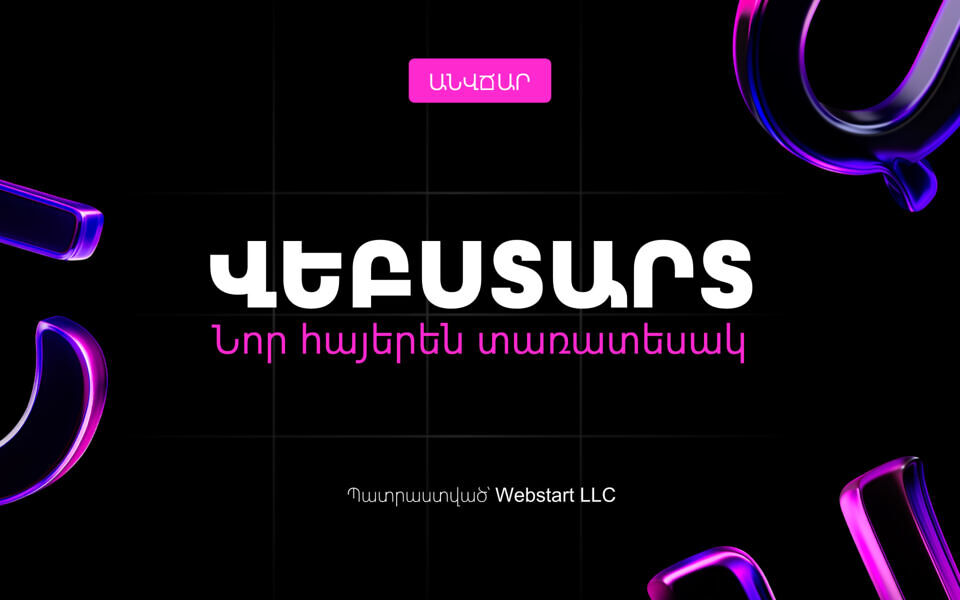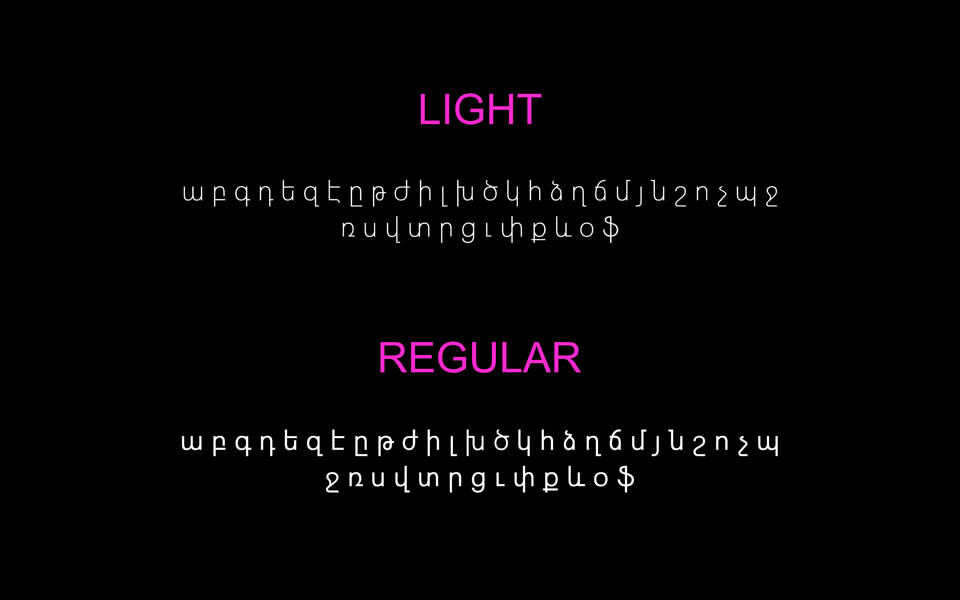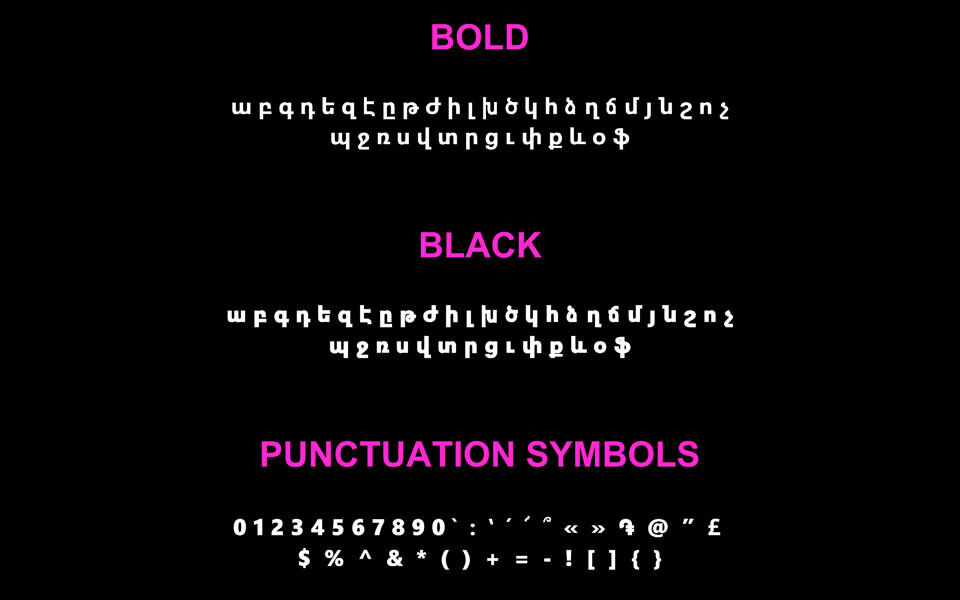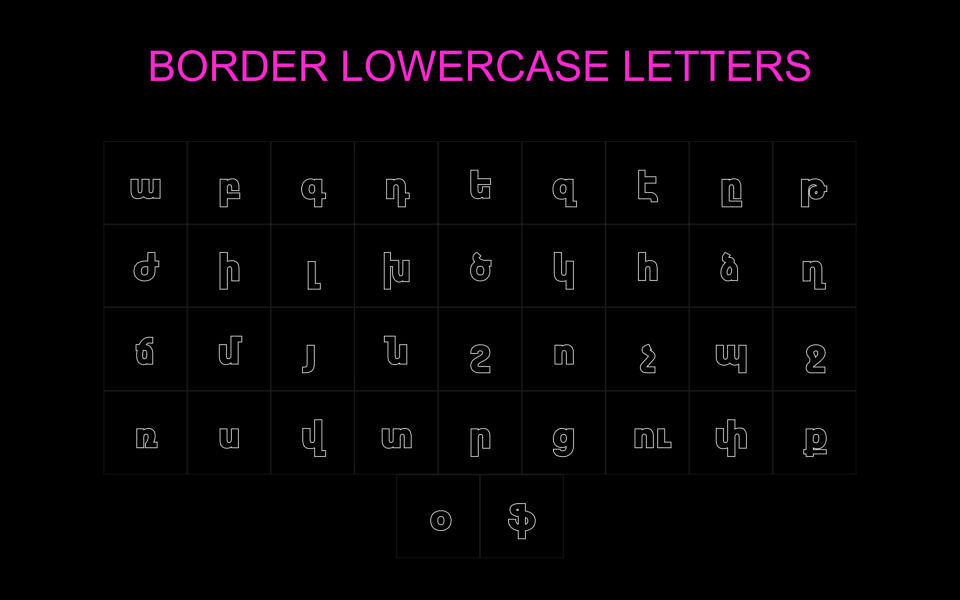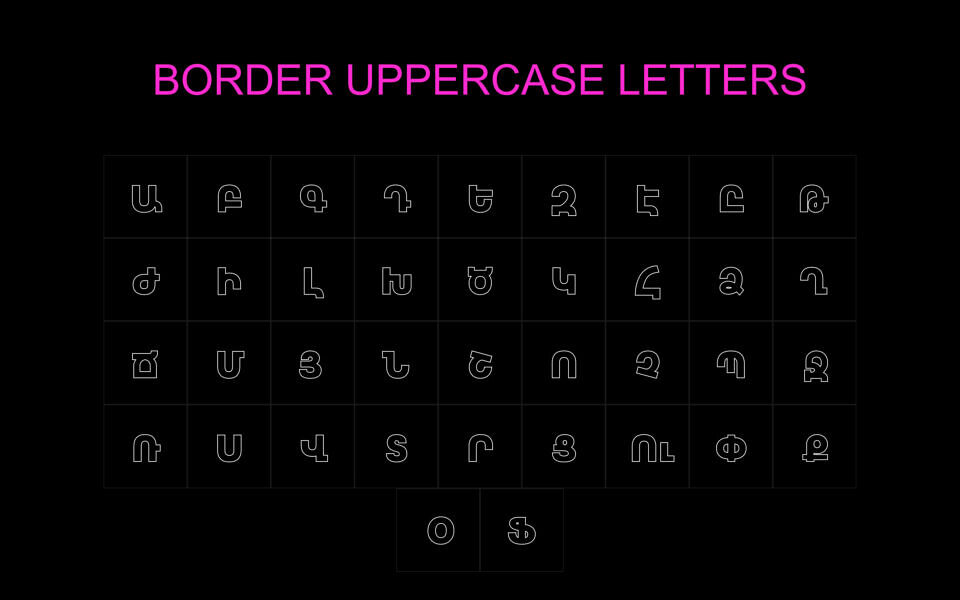
In a world where visual identity and digital presence matter more than ever, Webstart proudly introduces its very own Armenian typeface — a unique, fully custom-designed font that blends cultural heritage with modern digital aesthetics.
This font isn’t just a design product — it’s a contribution to preserving and elevating the Armenian language in the digital age. It was crafted with attention to typographic elegance, readability, and technical precision, making it suitable for a wide range of modern use cases.